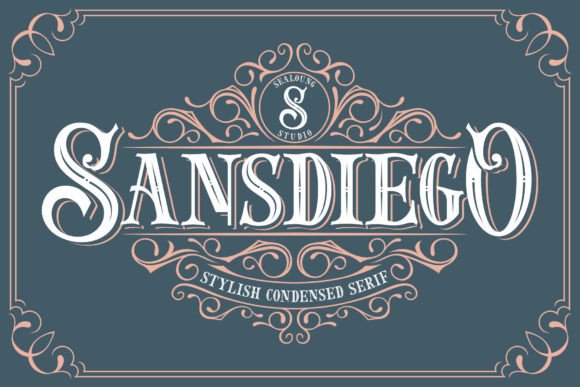
Are you ready to take your designs to the next level? Look no further than Sansdiego Font, the epitome of elegance and sophistication. Created by the talented designer Sealoung, this serif font is the perfect choice for anyone looking to make a statement with their typography.
Inspired by the European empire-era forms of writing, Sansdiego exudes a timeless charm that is sure to captivate your audience. With its refined and intricate details, this font is ideal for classic Victorian themed designs, adding a touch of nostalgia and elegance to any project.
But Sansdiego isn't just limited to vintage aesthetics. Its versatility shines through, making it a great choice for a variety of applications. Whether you're designing beer packaging, whiskey labels, barbershop logos, or even tattoo studio branding, Sansdiego will elevate your designs to new heights.
One of the standout features of Sansdiego is its layering options. With the included effects of Normal, Style, Double, and Shadow, you can easily create depth and dimension in your typography. This layered font opens up a world of creative possibilities, allowing you to experiment and create eye-catching designs that truly stand out from the crowd.
But what sets Sansdiego apart from other fonts on the market? It's the attention to detail and the passion behind its creation. Every curve and every serif has been meticulously crafted to ensure a flawless and seamless reading experience. With Sansdiego, your words will flow effortlessly, leaving a lasting impression on your audience.
When it comes to cover letters, you want to make a strong first impression. That's where Sansdiego comes in. As one of the best fonts for cover letters, it conveys professionalism and elegance, instantly grabbing the attention of potential employers. Stand out from the competition and let your words speak volumes with Sansdiego.